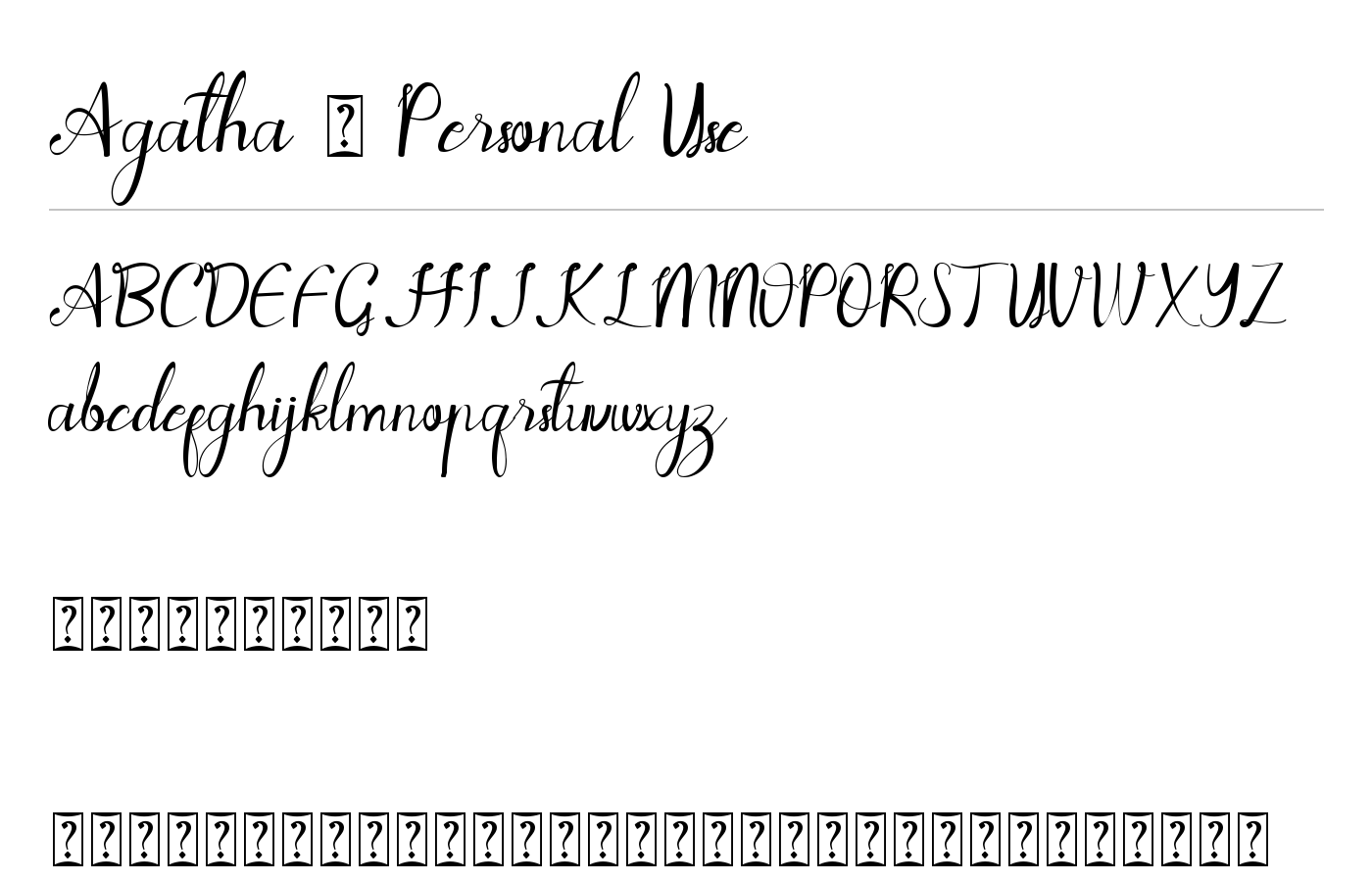
Agatha is an elegant script font featuring delicate, flowing letterforms with a handwritten feel. Its graceful curves and varying stroke widths give it a sophisticated, personal touch, making it perfect for invitations, branding, and projects that seek a stylish yet approachable look. This font works best in decorative and display settings where its refined charm can shine.
Agatha Font
About Agatha Font
| Font family | Agatha Font |
| Designer | Yogaletter 2020 (isroniyoga) |